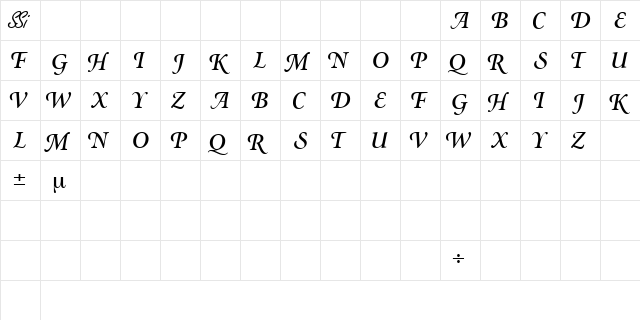
AtlantixSwashCapsSSK BoldItalic Font Preview
Design Context for AtlantixSwashCapsSSK Typeface
AtlantixSwashCapsSSK flows with the natural rhythm of handwritten lettering, making it ideal for designs that call for warmth and personal expression. The heavy weight commands attention and anchors typographic hierarchies.
Font Pairing: Combine AtlantixSwashCapsSSK with a simple geometric sans for maximum contrast — the tension between flowing curves and clean structure is a classic typographic pairing.
Pro Tip: Pair AtlantixSwashCapsSSK with a clean sans-serif for supporting text. The contrast between fluid script and geometric structure creates an elegant typographic hierarchy.